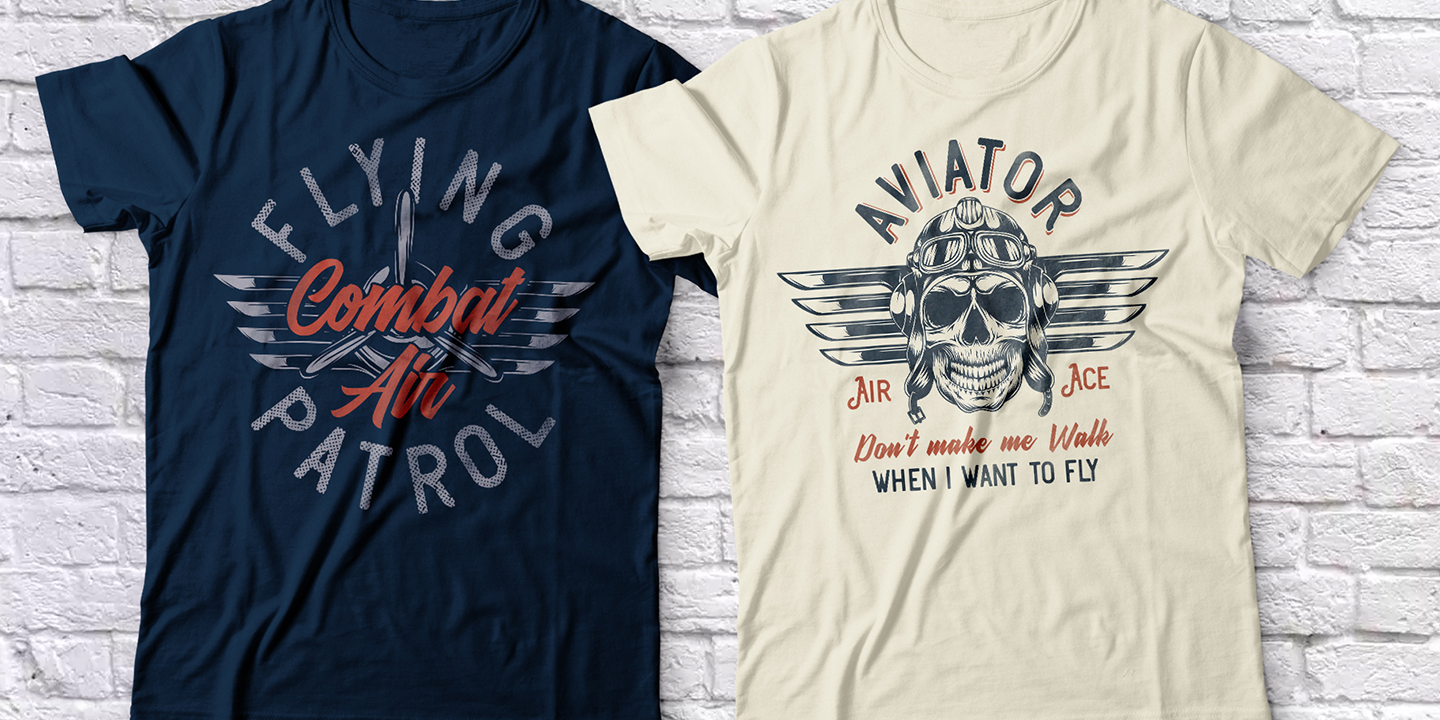
Aviation Cocktail Font is perfect for cocktail bar menus, vintage aviation branding, speakeasy signage, retro hospitality materials, craft distillery labels, upscale restaurant logos, prohibition-era themed events, and sophisticated beverage packaging.
This distinctive art deco typeface is exciting because it captures the glamorous spirit of 1920s aviation and cocktail culture, featuring streamlined letterforms that evoke the golden age of flight and the sophisticated elegance of classic mixology.
The Aviation Cocktail Font family includes regular and bold weights with art deco alternates, vintage ligatures, and period-appropriate decorative elements that enhance the authentic prohibition-era atmosphere of any hospitality project.
Glamorous and sophisticated, Aviation Cocktail Font Free Download transports audiences to the golden age of aviation and artisanal cocktails. This elegant font embodies the adventurous spirit of early flight pioneers and the refined craftsmanship of classic bartenders, making it essential for establishments that celebrate heritage and quality. Its streamlined art deco styling creates instant visual appeal while maintaining the credibility that discerning customers expect from premium hospitality brands. Perfect for craft cocktail lounges and aviation-themed venues, this font ensures your brand carries the timeless sophistication of an era when travel was glamorous and cocktails were art. Whether adorning bottle labels or elegant menus, Aviation Cocktail Font Free Download delivers the vintage authenticity that elevates any hospitality experience.